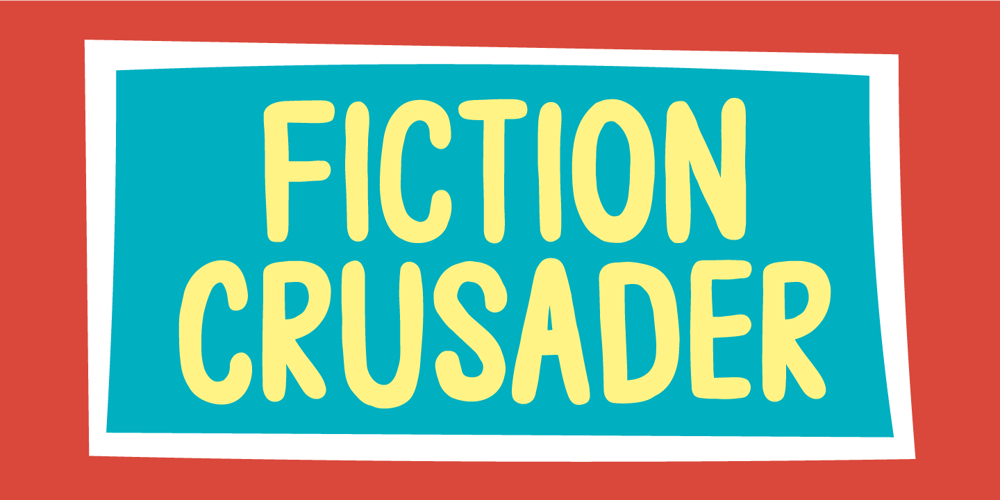
Fiction Crusader
Fiction Crusader font
Fiction Crusader Font Family was designed by Jakob Fischer and published by PizzaDude.dk. Fiction Crusader contains 2 styles and family package options. The name “Fiction Crusader” was generated by a random word generator. It may sound odd, but I like the feel of it. Use your imagination: what exactly is a fiction crusader?Each letter has 6 slightly different versions, and they automatically cycle as you type. A great way to make your text look more lively and vibrant!I guess that this is an all-purpose font, because I can’t think of a project that couldn’t use a font like this!